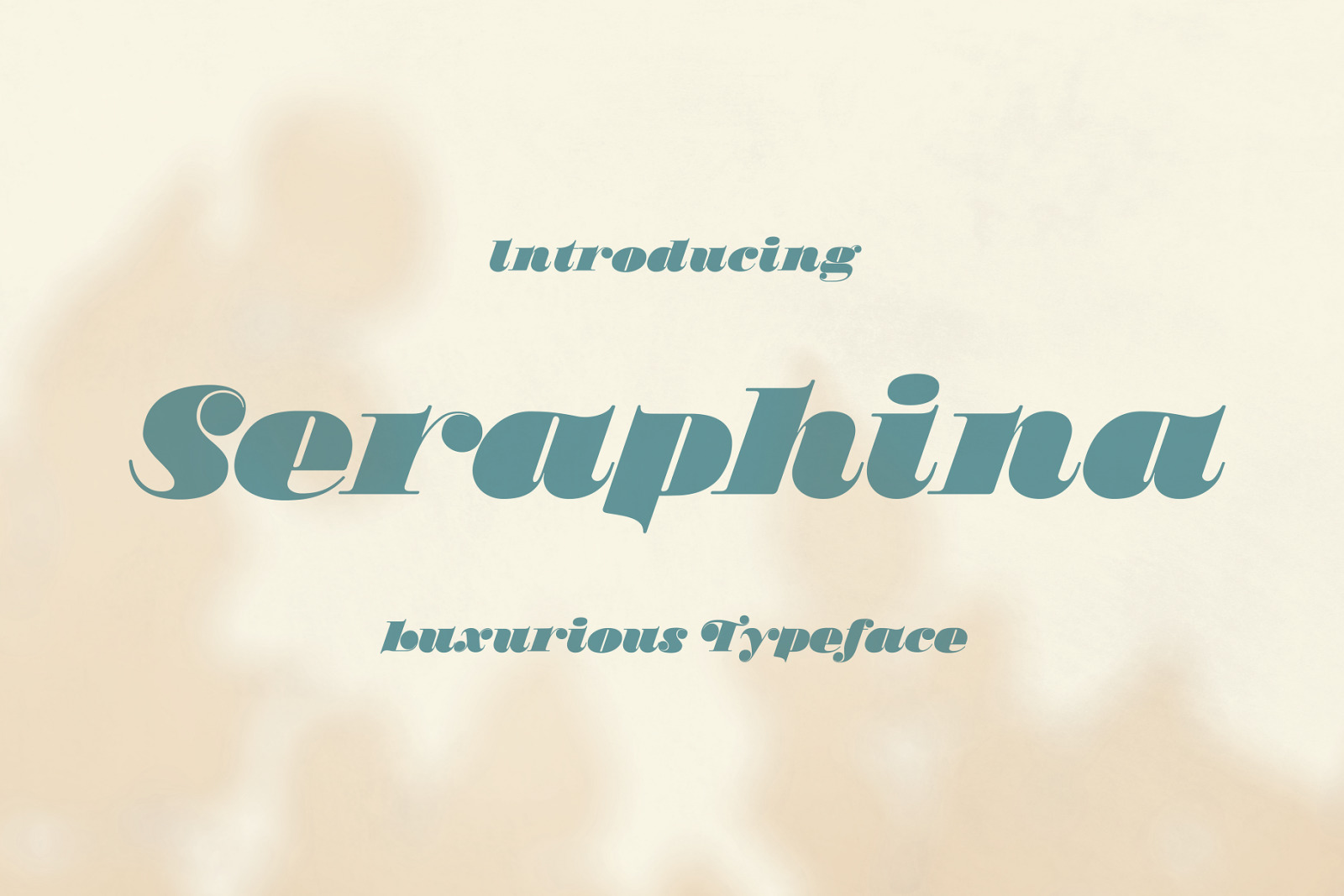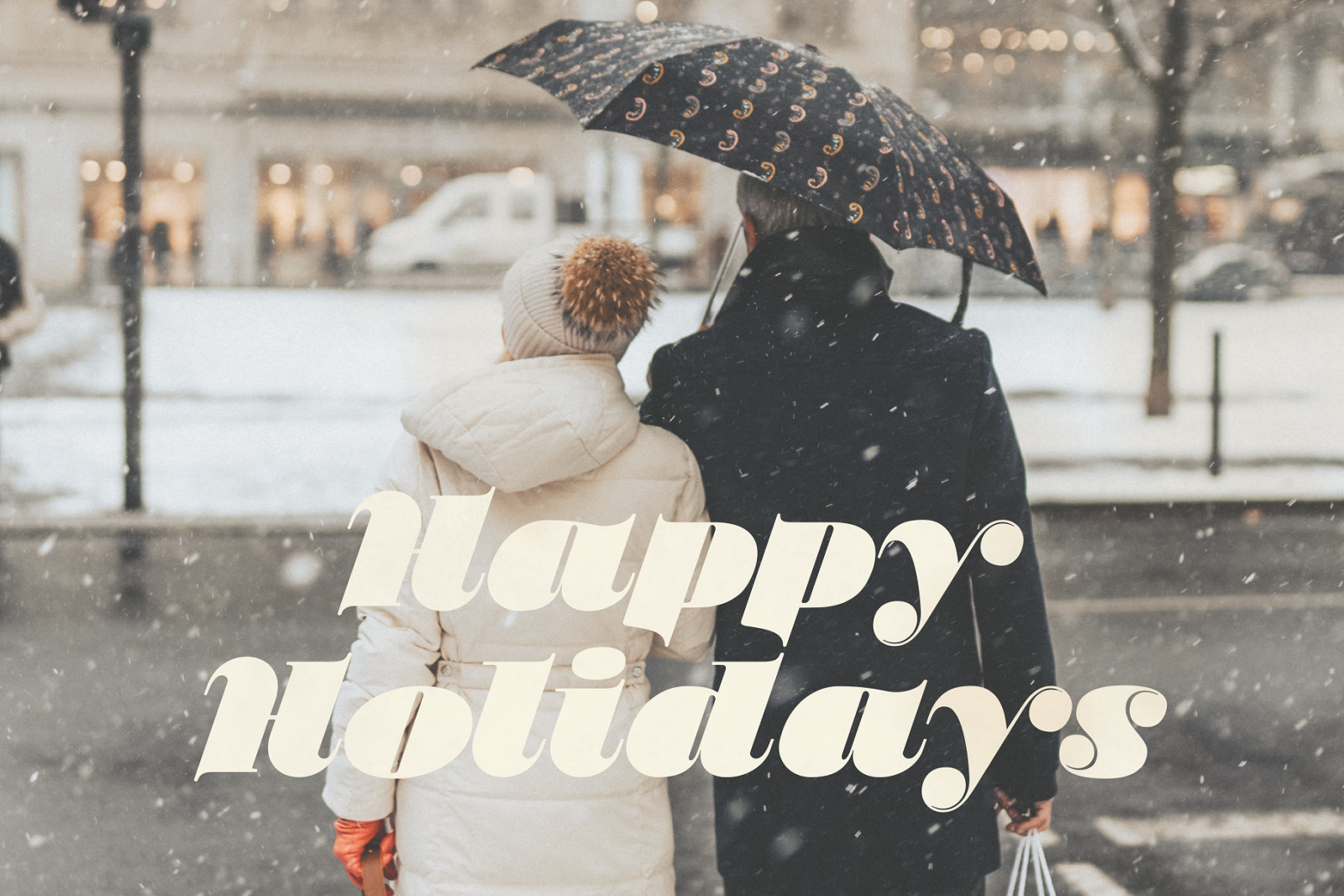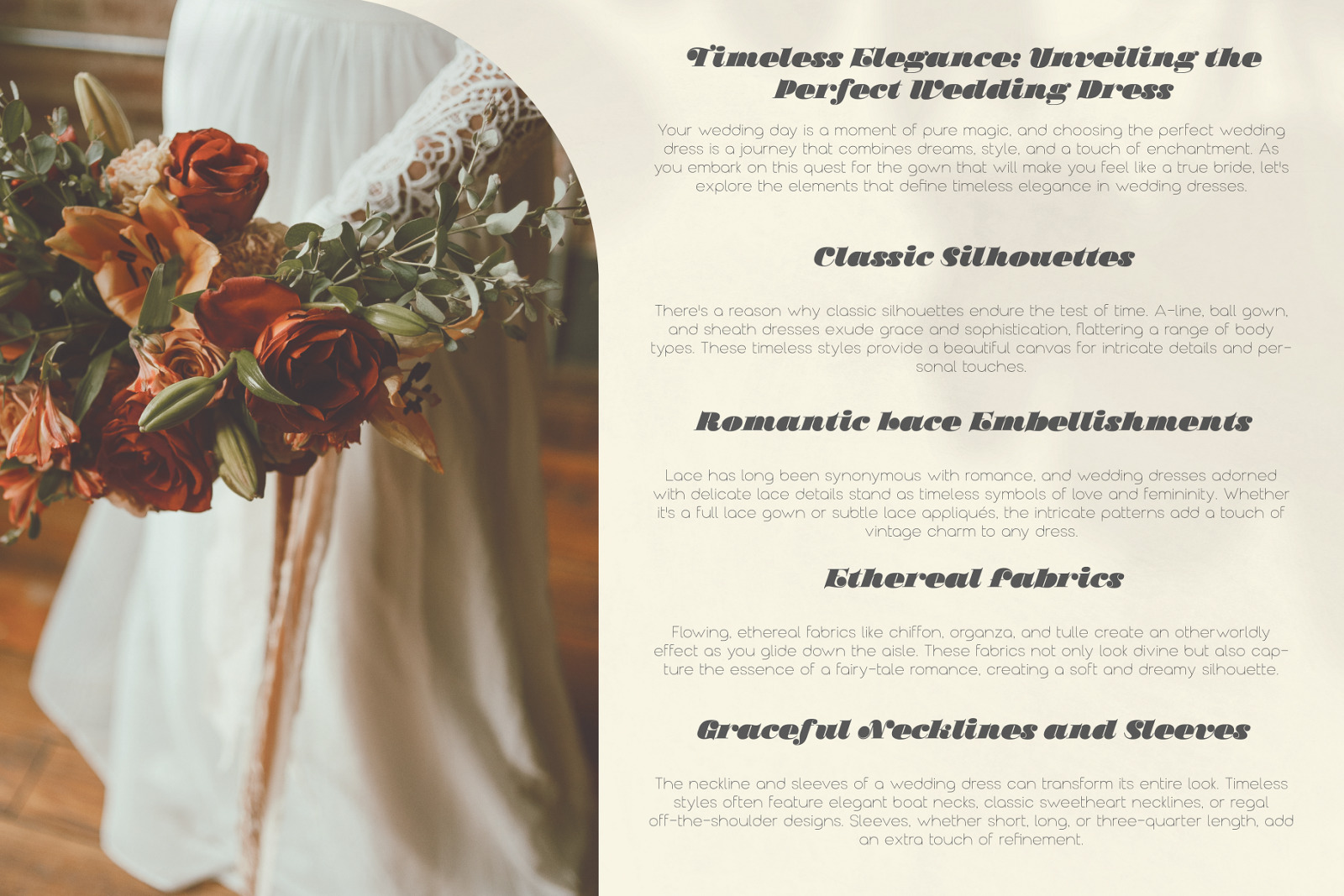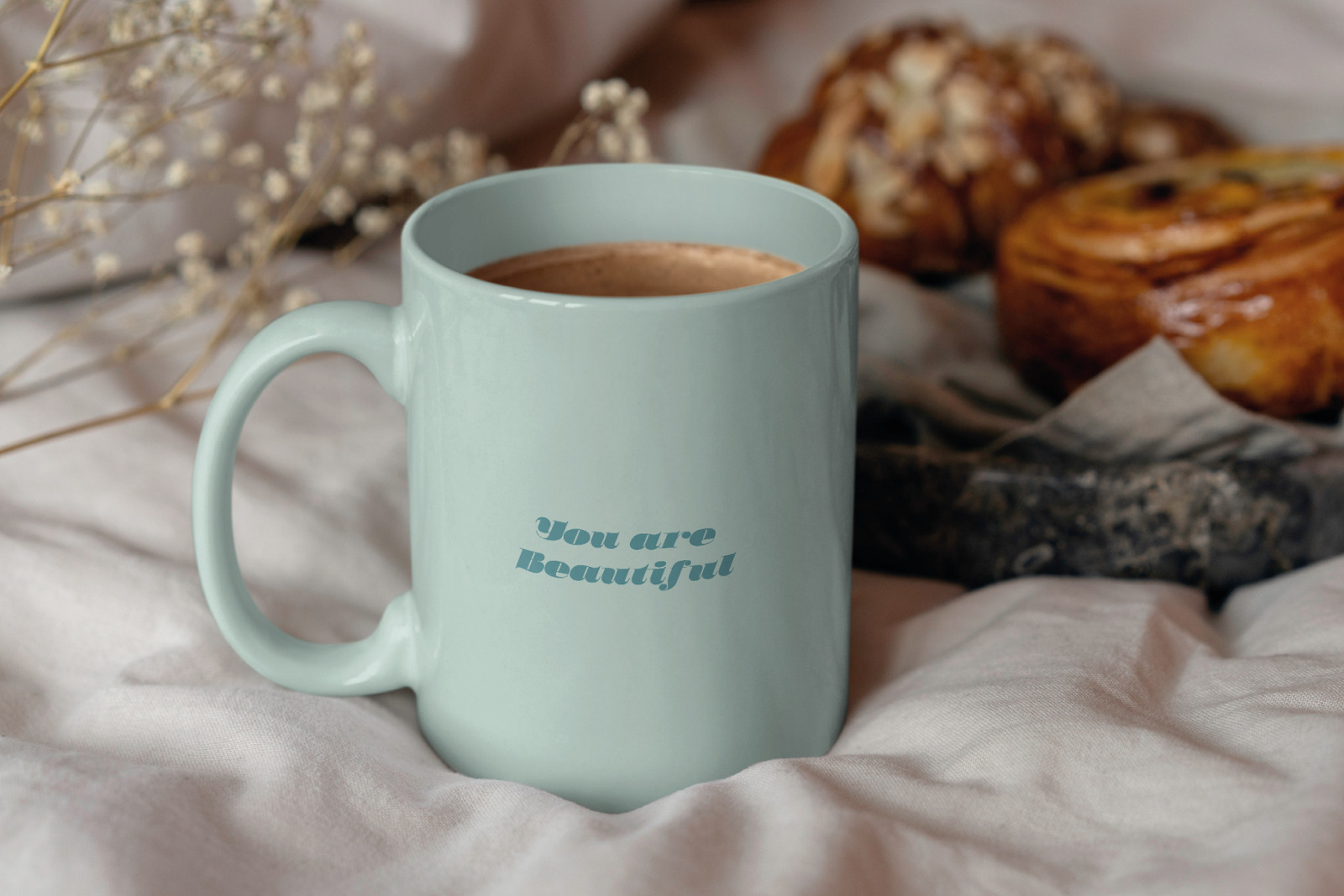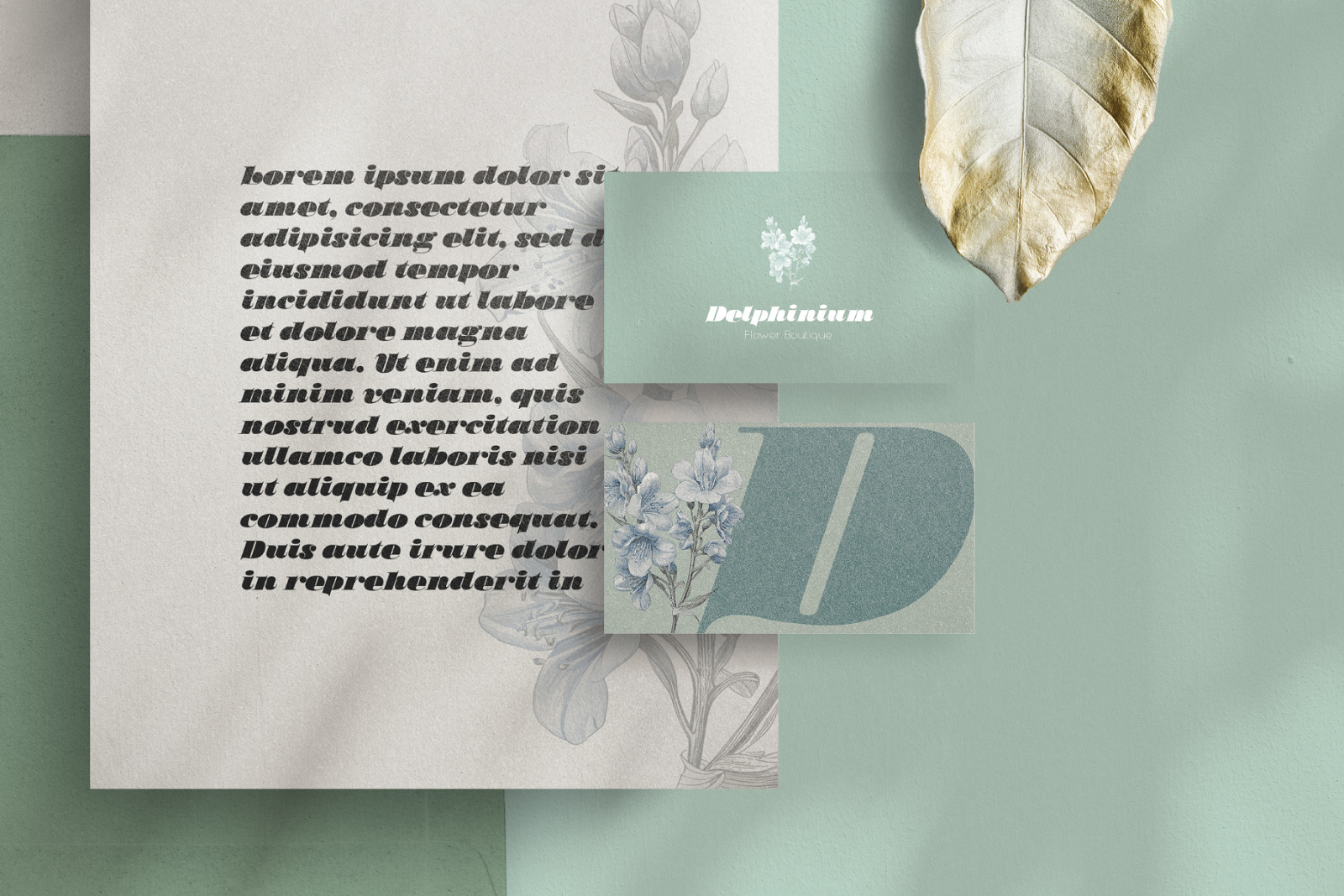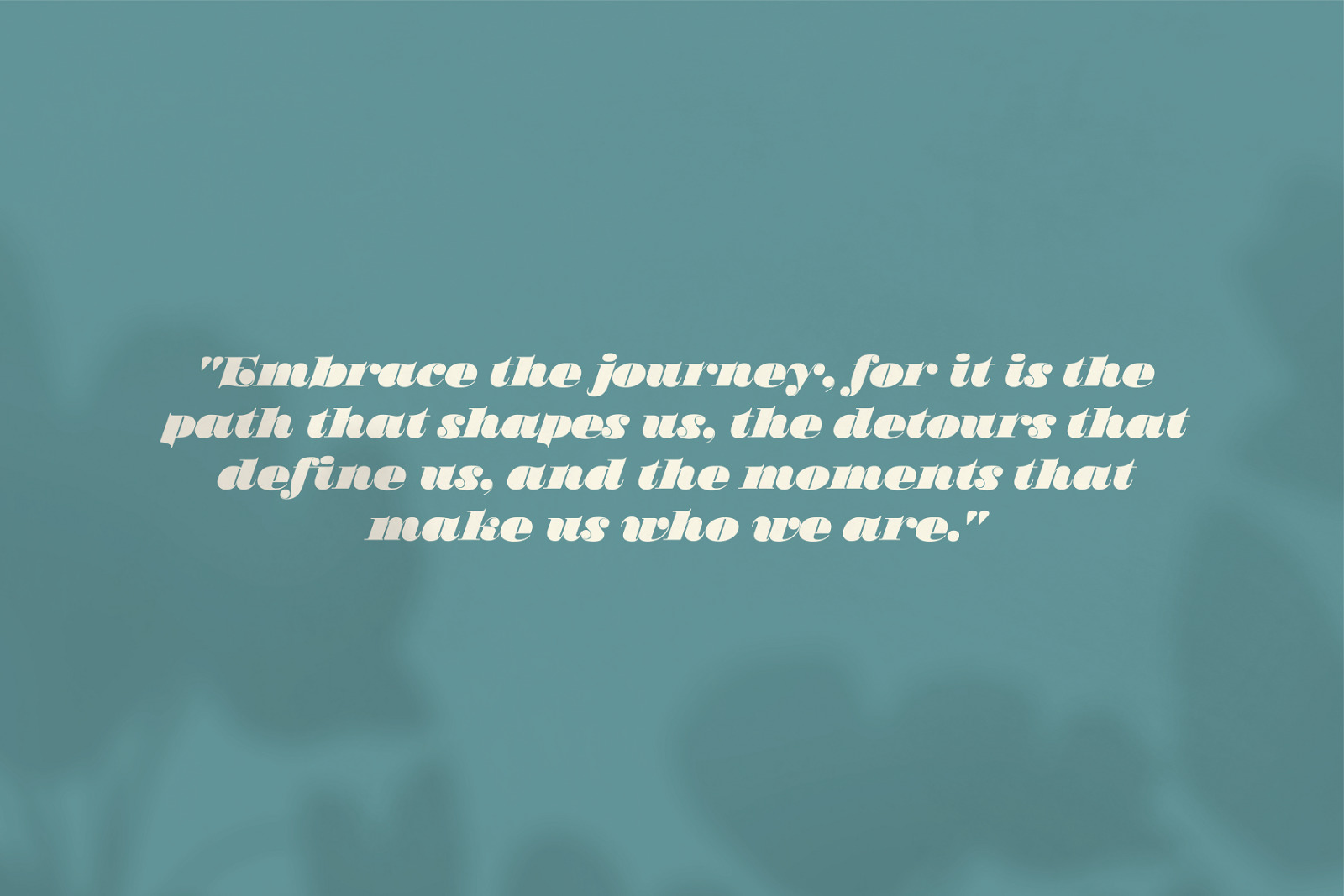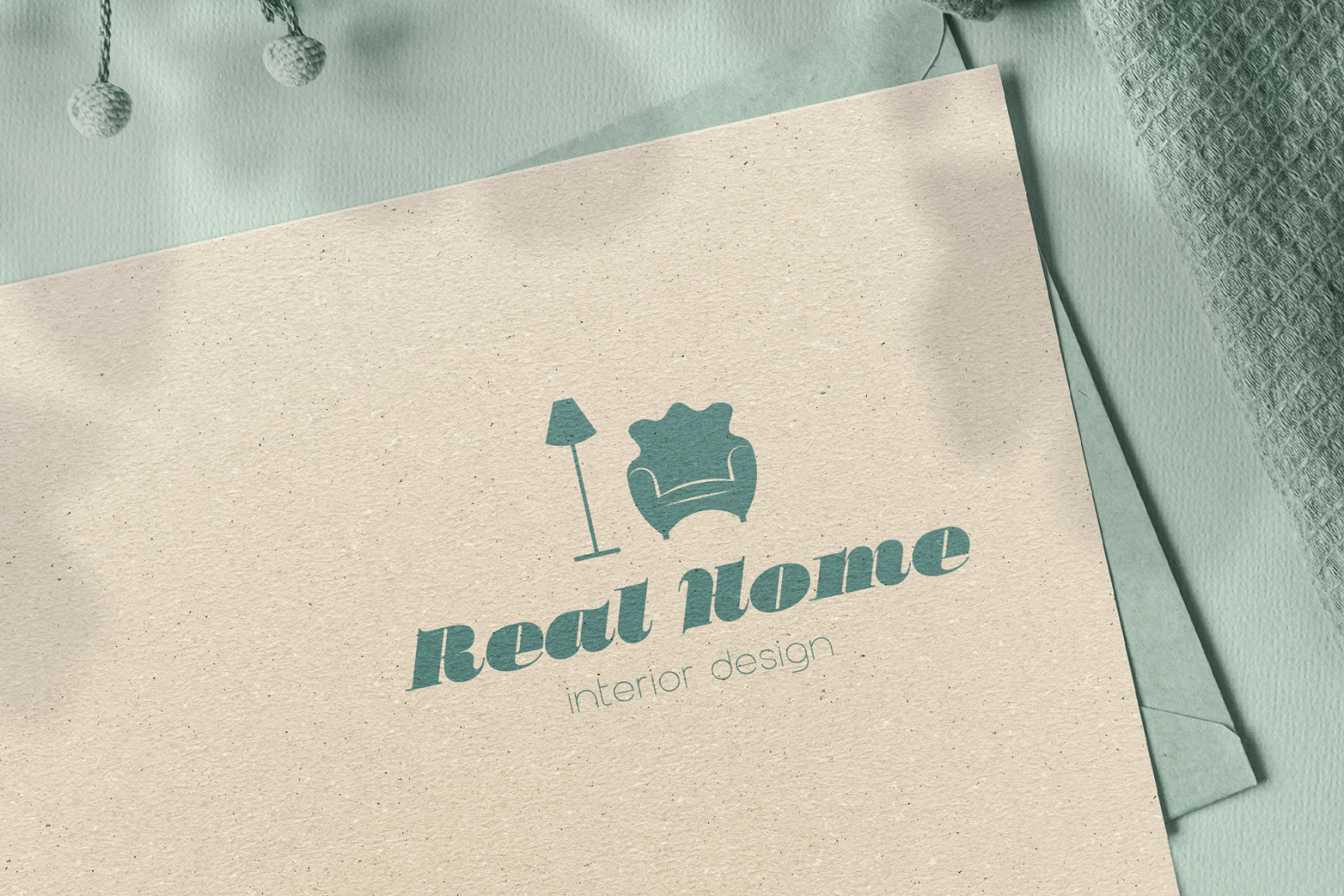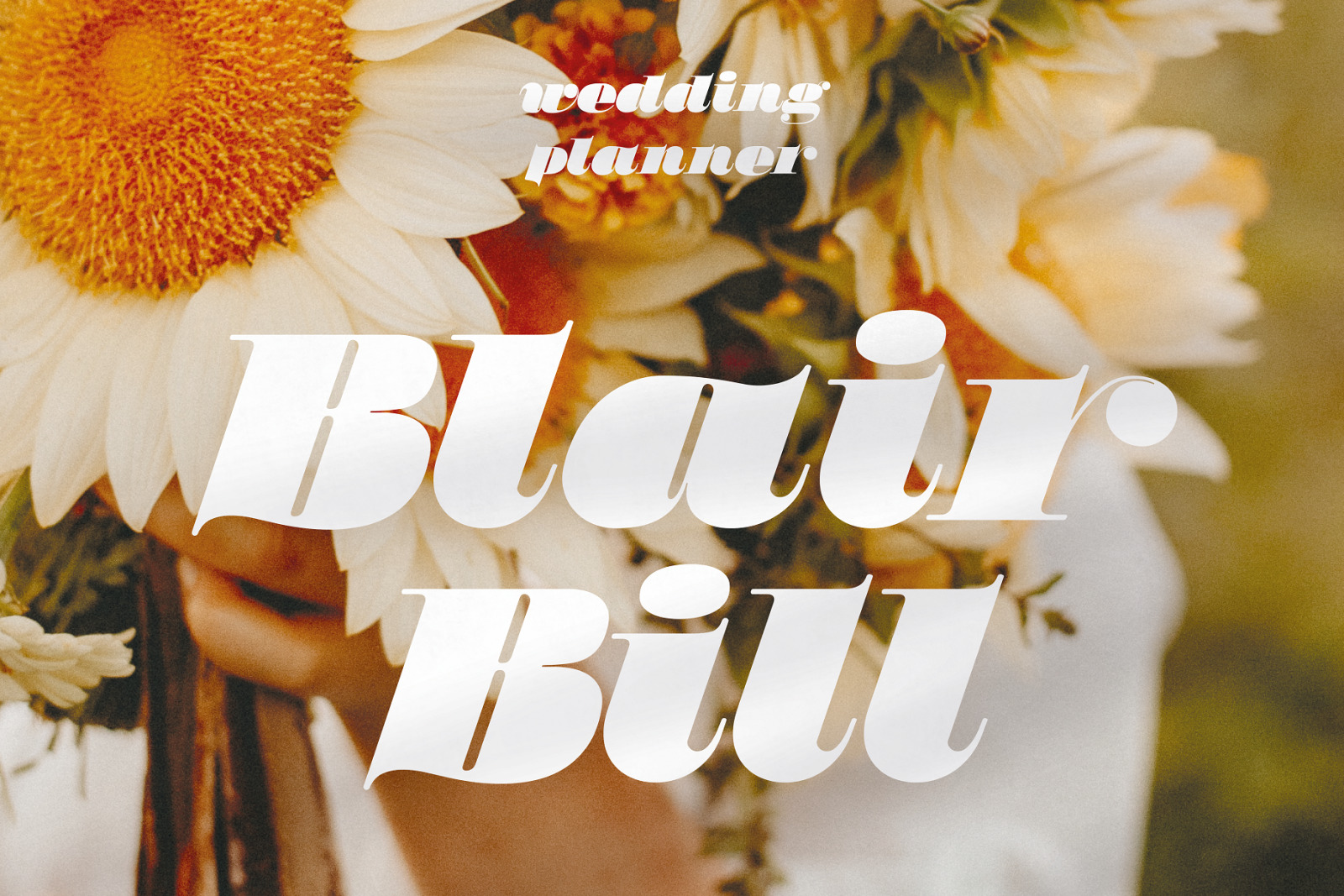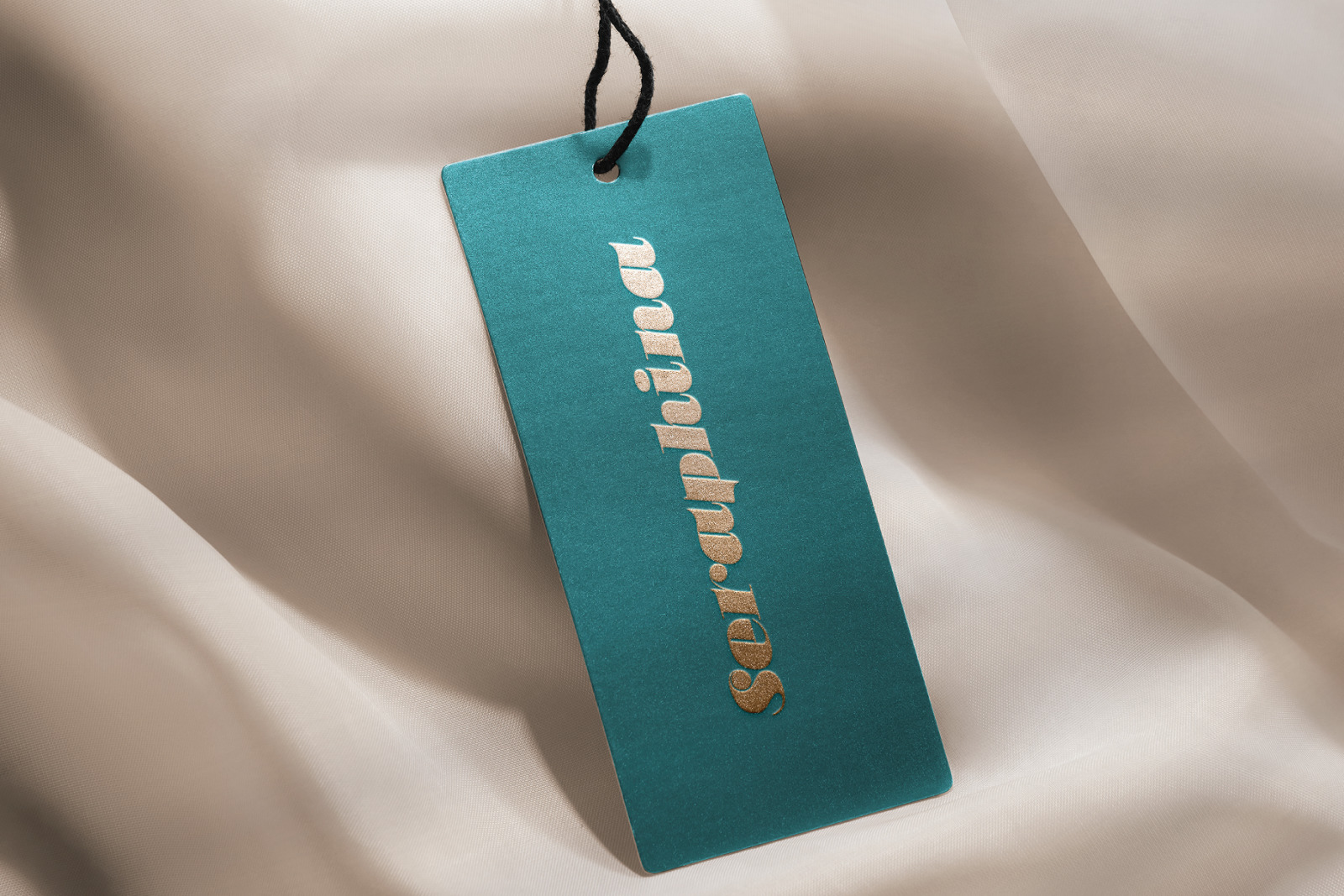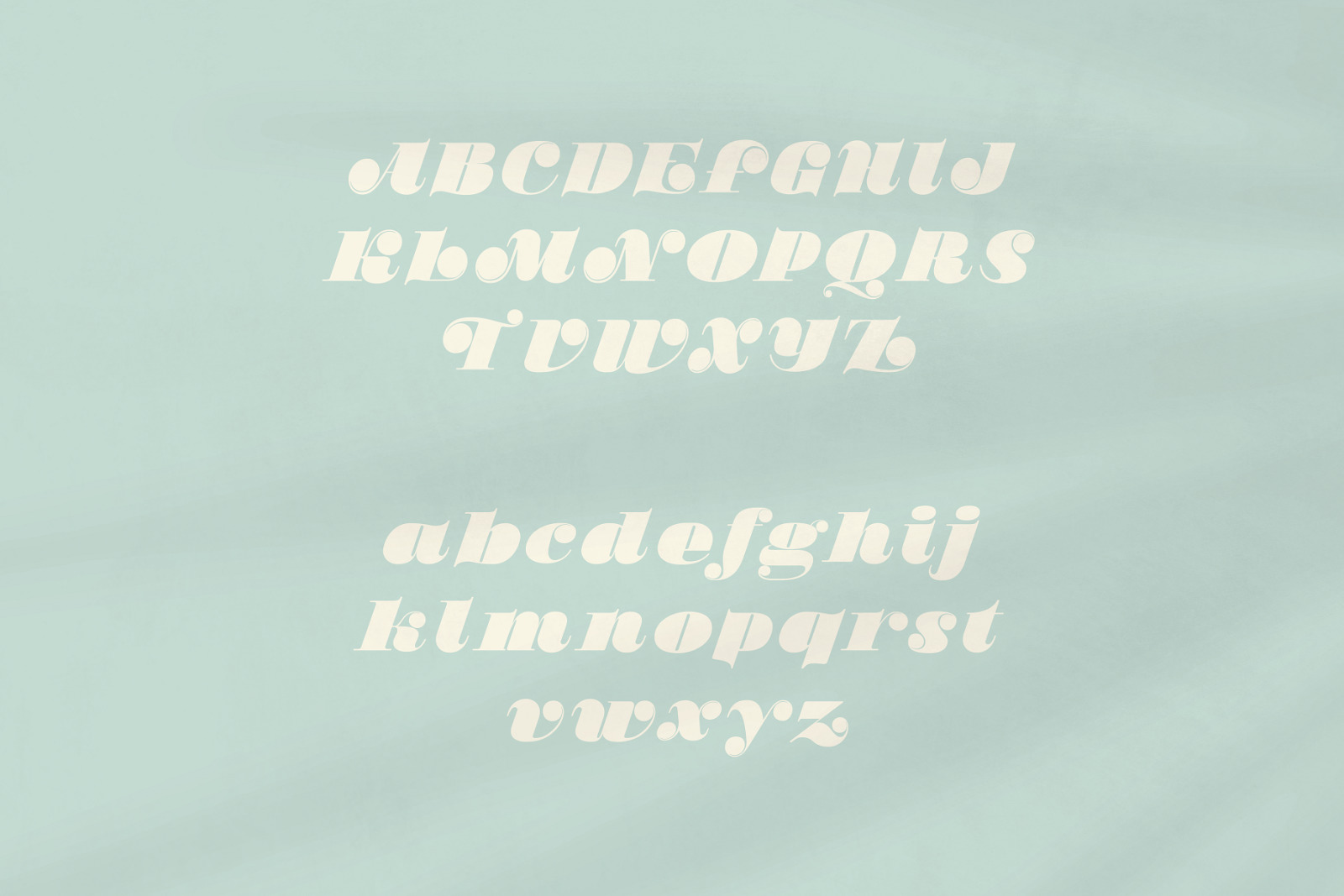
Seraphina - Luxurious Typeface
Seraphina is an exquisite luxury typeface that epitomizes elegance and sophistication. Designed to exude class, its flowing lines and refined curves create a visual harmony that is both pleasing and upscale.
This font is ideal for high-end branding, elegant invitations, and premium marketing materials where a touch of luxury is essential. Its graceful and stylish character makes Seraphina not just a typeface, but a statement of exquisite taste and opulence, perfect for projects that demand a sense of exclusivity and refined beauty.